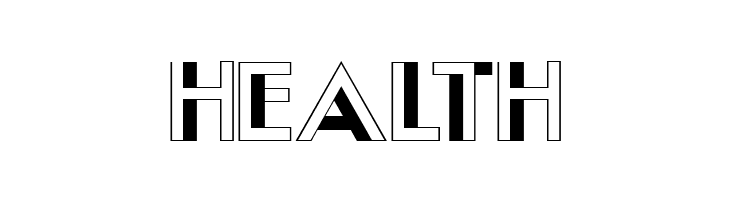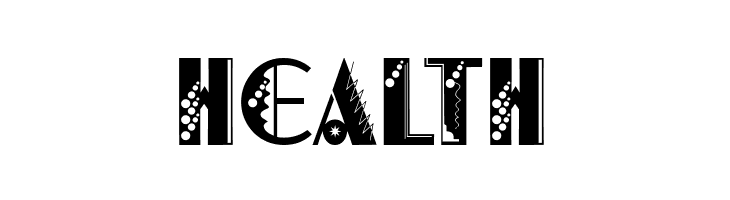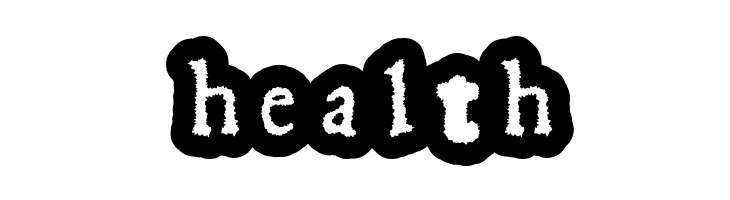
A playful, decorative font with a crinkled, textured appearance and bold outlines.
A playful, heart-themed decorative font with bold rectangular numerals and symbols.
A bold, geometric font with a mix of solid and outlined elements, ideal for decorative use.
A bold, textured font with a playful, distressed style.
A bold, playful decorative font with a bubble-like, three-dimensional appearance.
A playful, bold font with bubbly outlines and textured interiors.